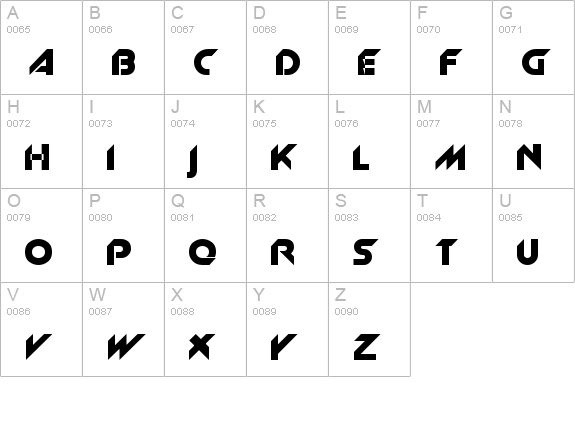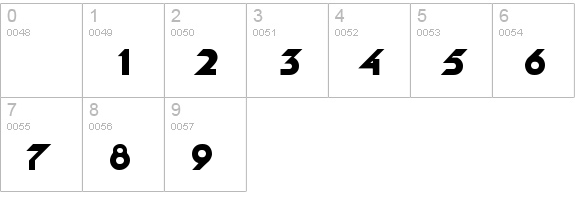
RSNewGarrett Font Details
RSNewGarrett is a modern and stylish font that combines elegance with versatility. With its clean lines and sleek curves, this font is perfect for a wide range of design projects, from branding to editorial design. Whether you're creating a logo, a poster, or a website, RSNewGarrett will give your text a sophisticated and contemporary look. The best part? RSNewGarrett is completely free to download at FontsMarket.com. You can easily access this font and use it in your projects without any cost. So why settle for generic fonts when you can elevate your designs with RSNewGarrett for free? Download it today and see the difference it can make in your work.